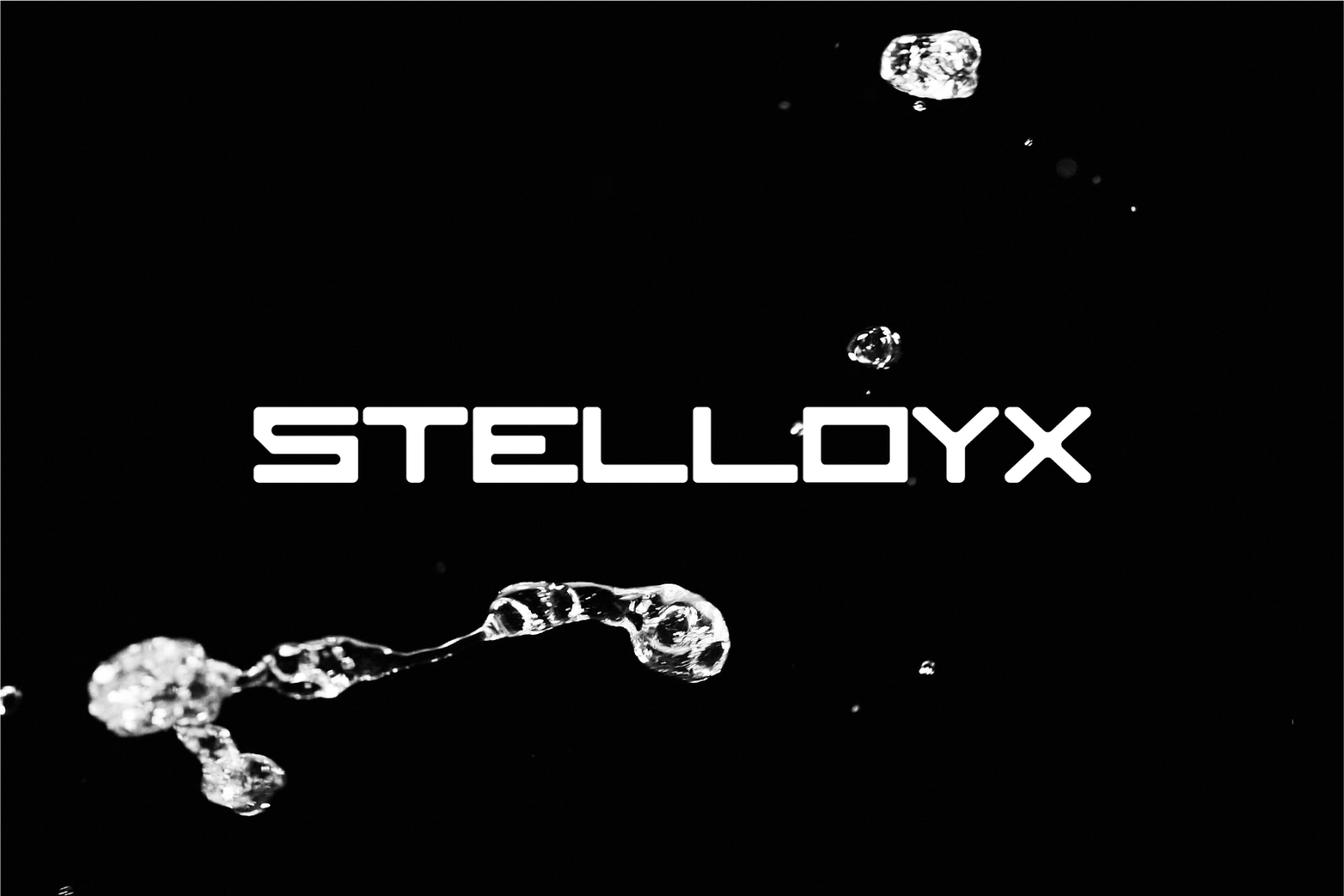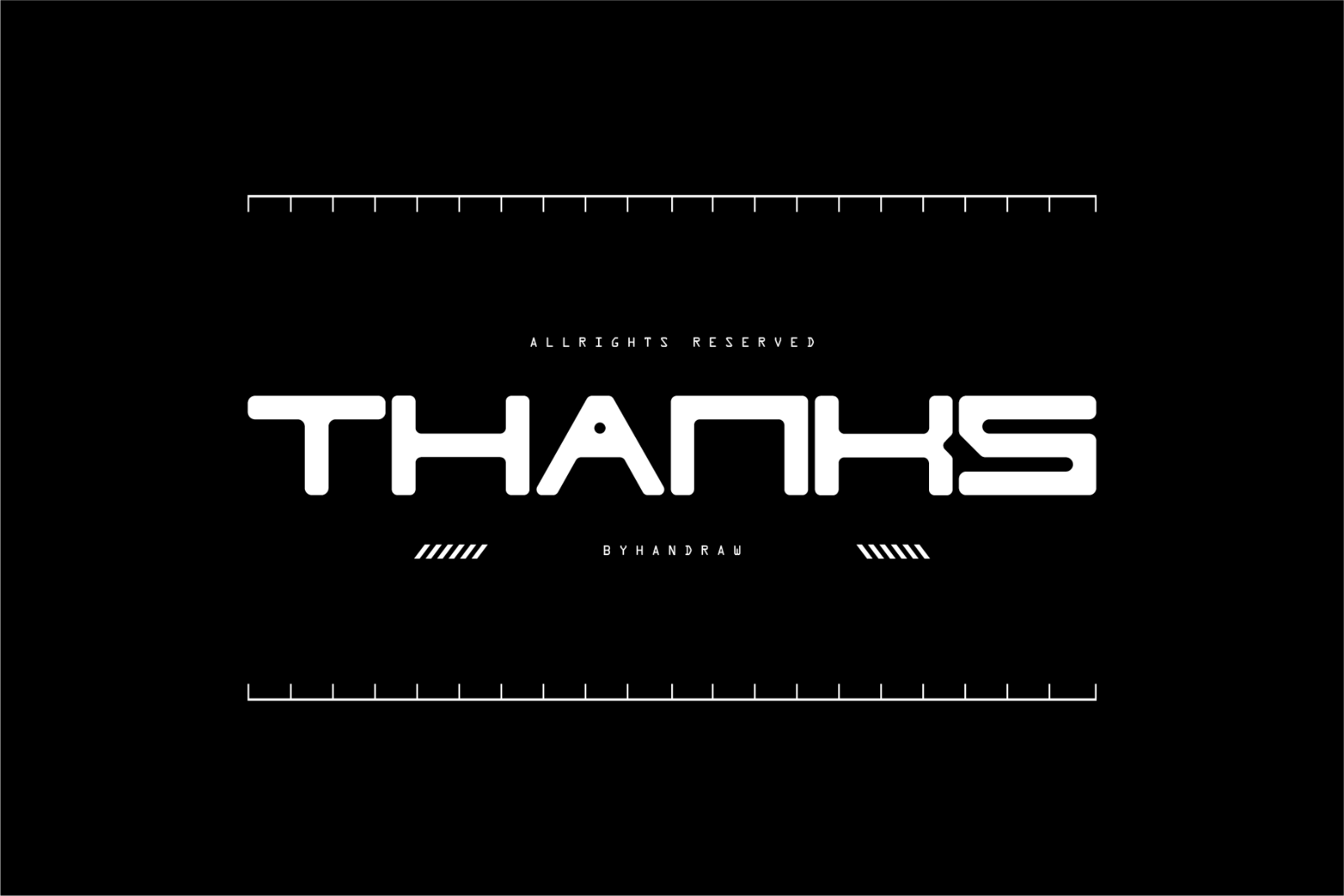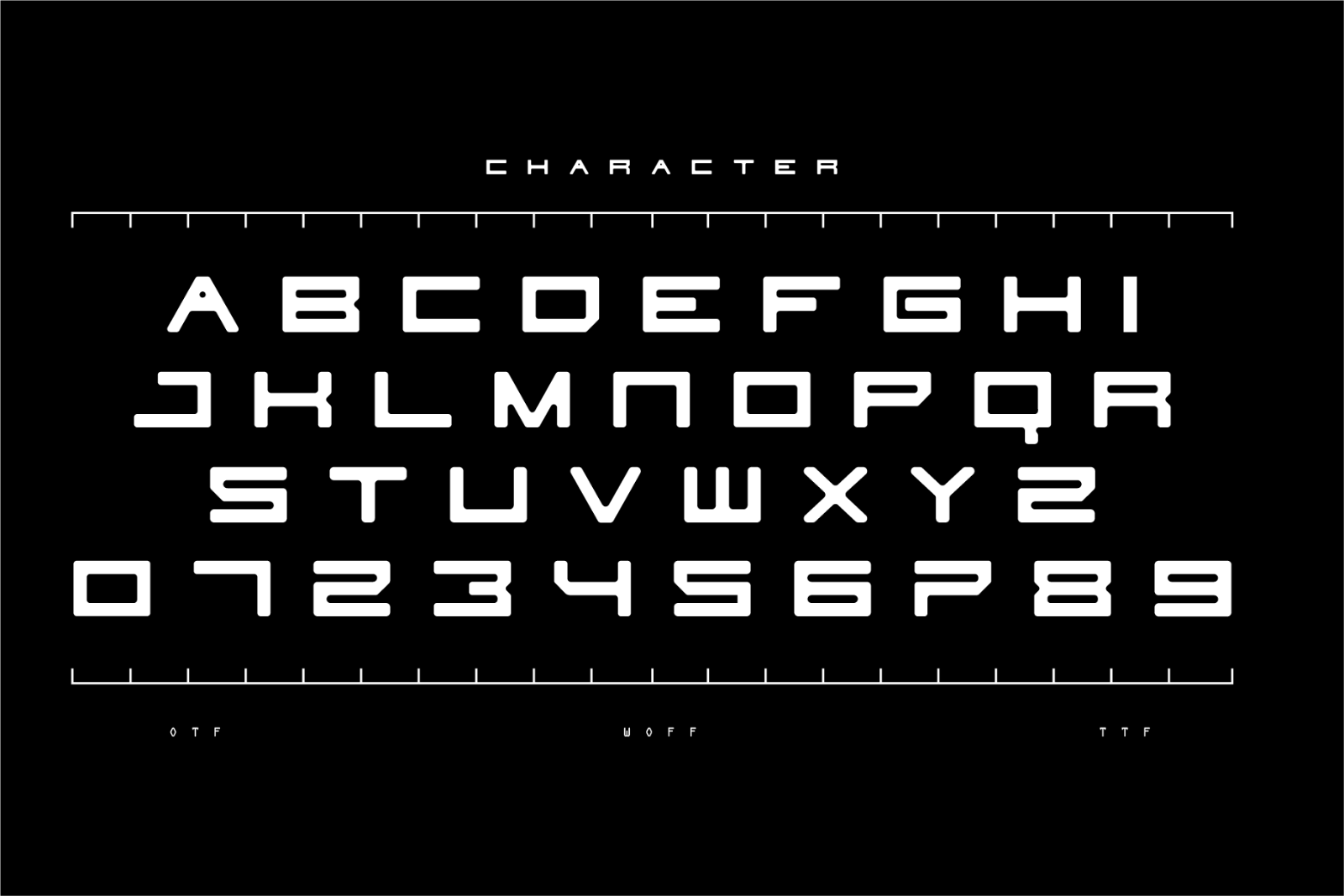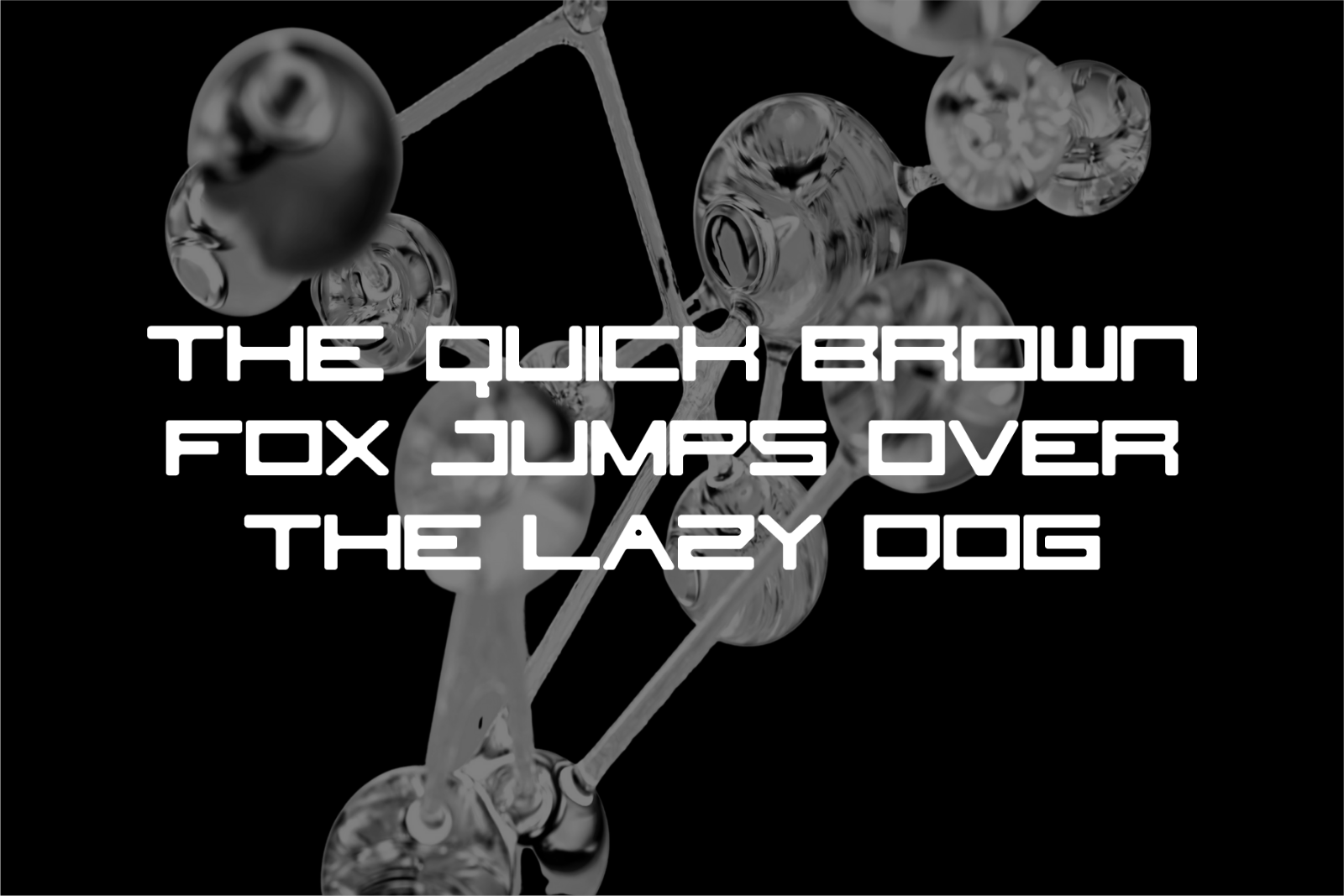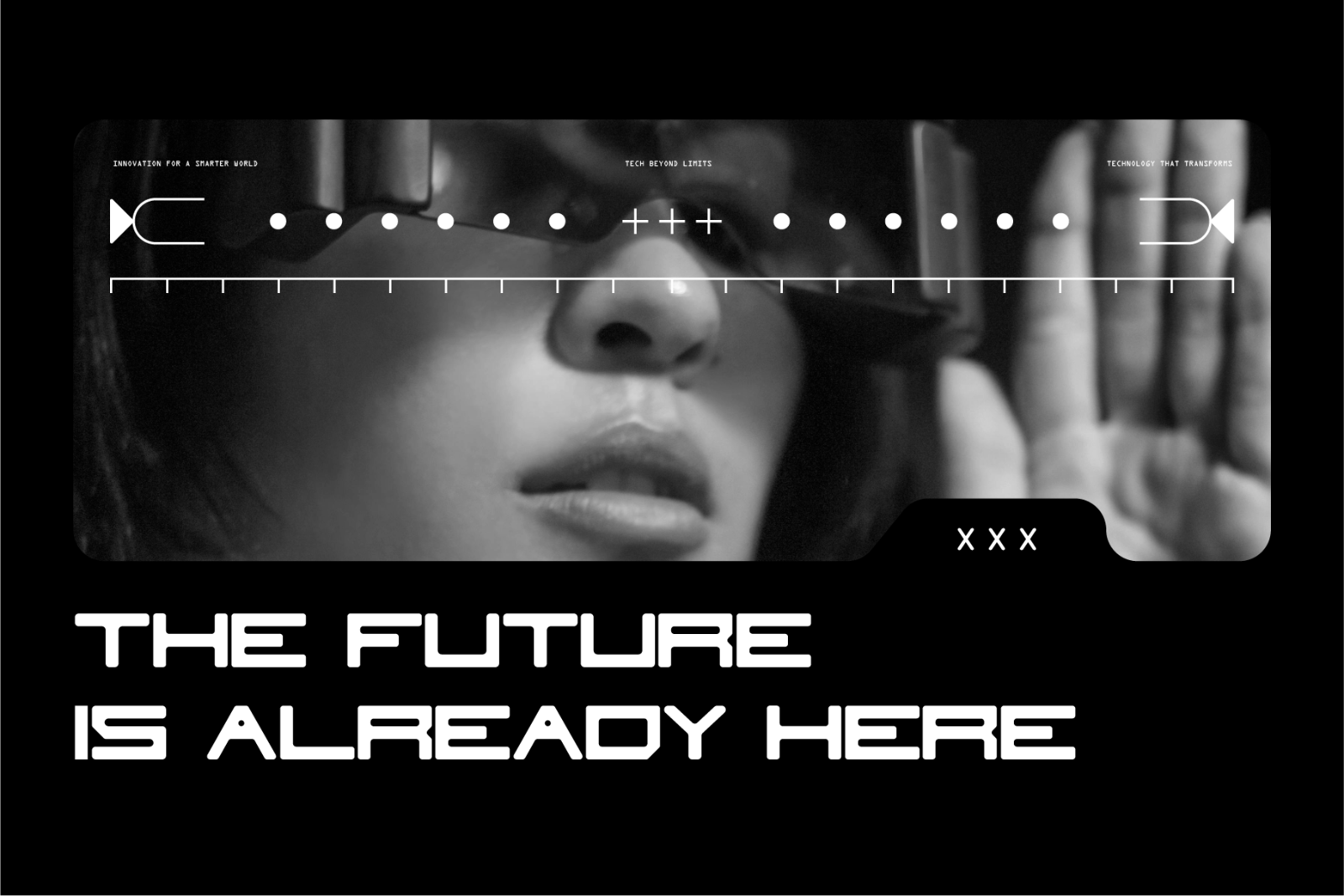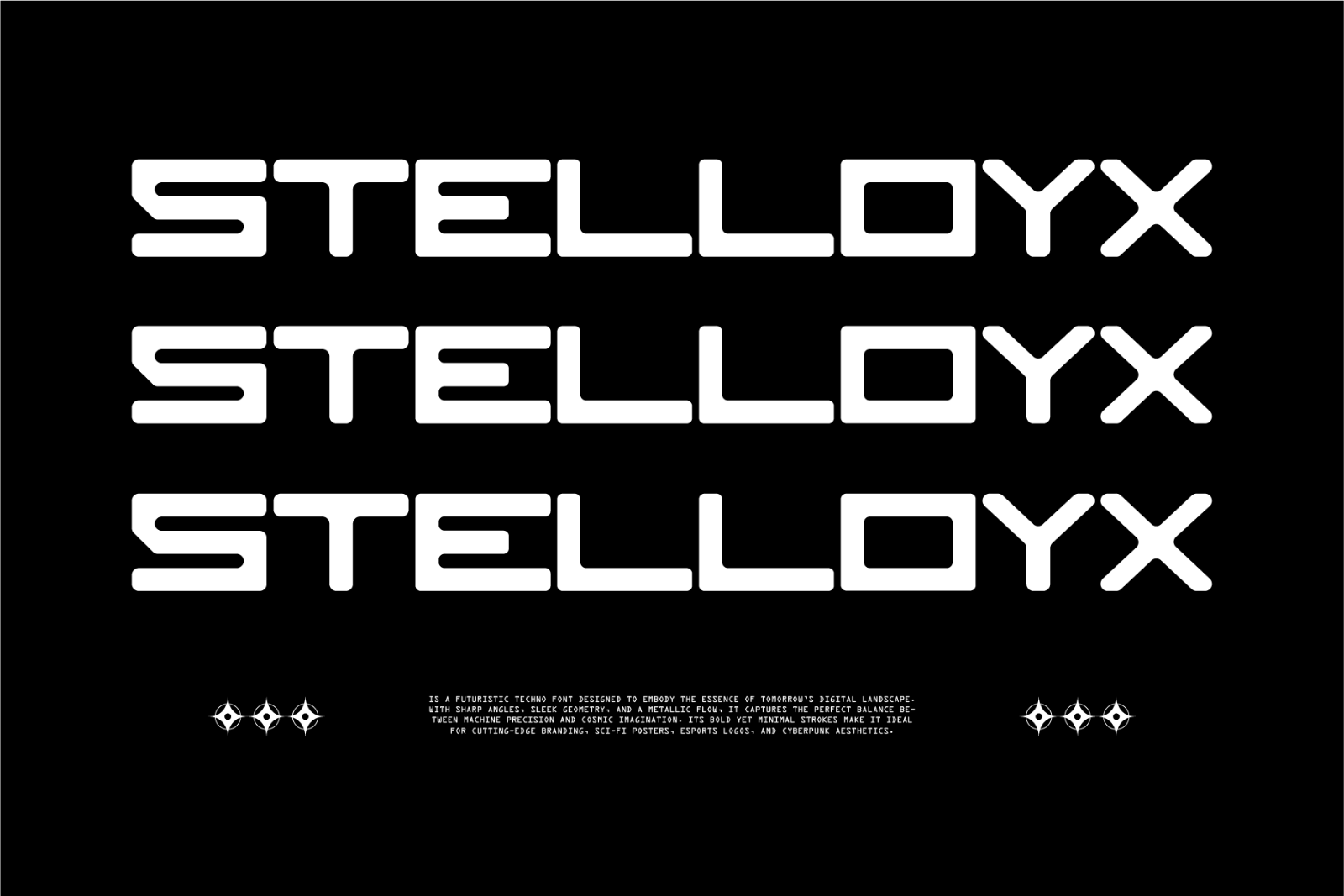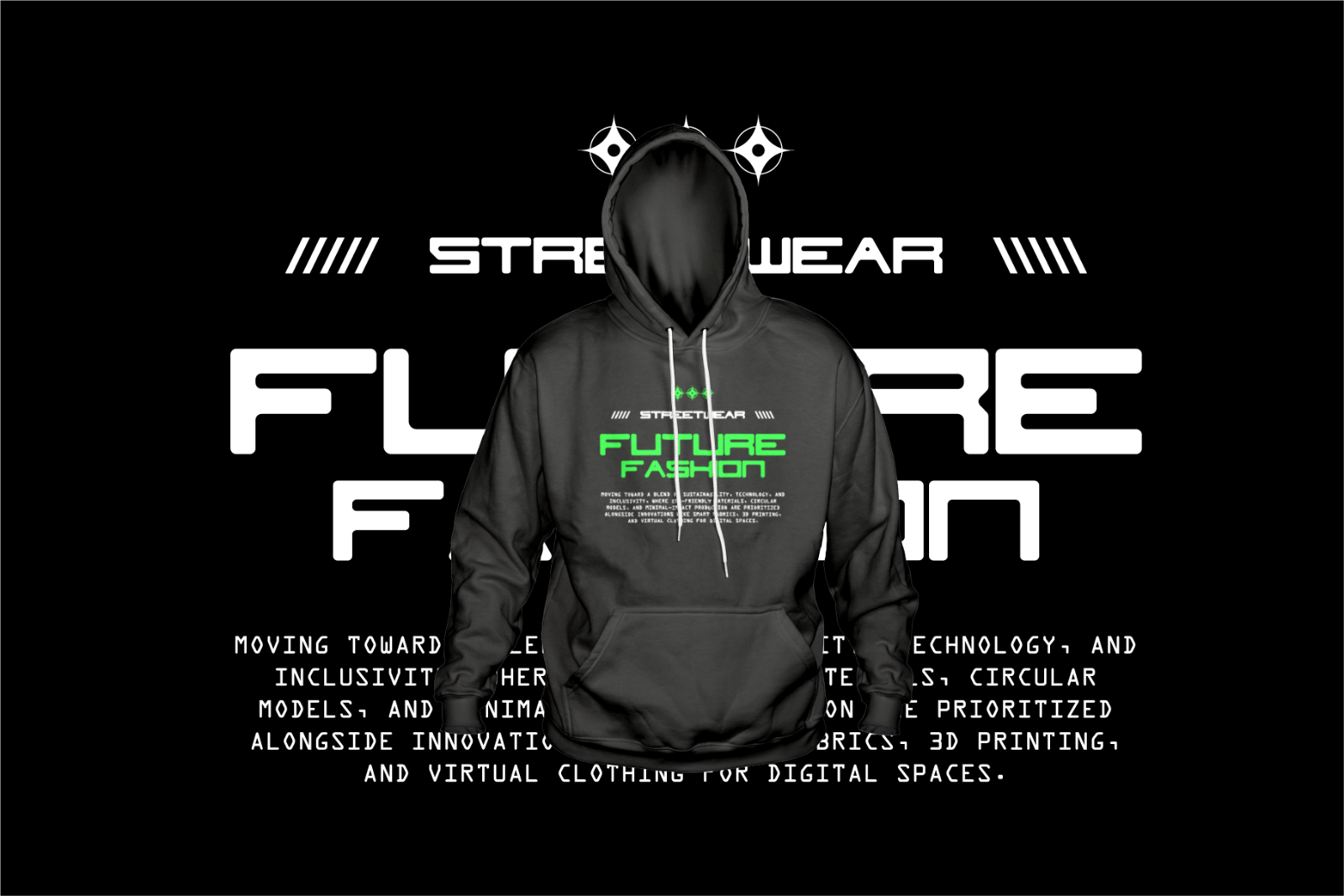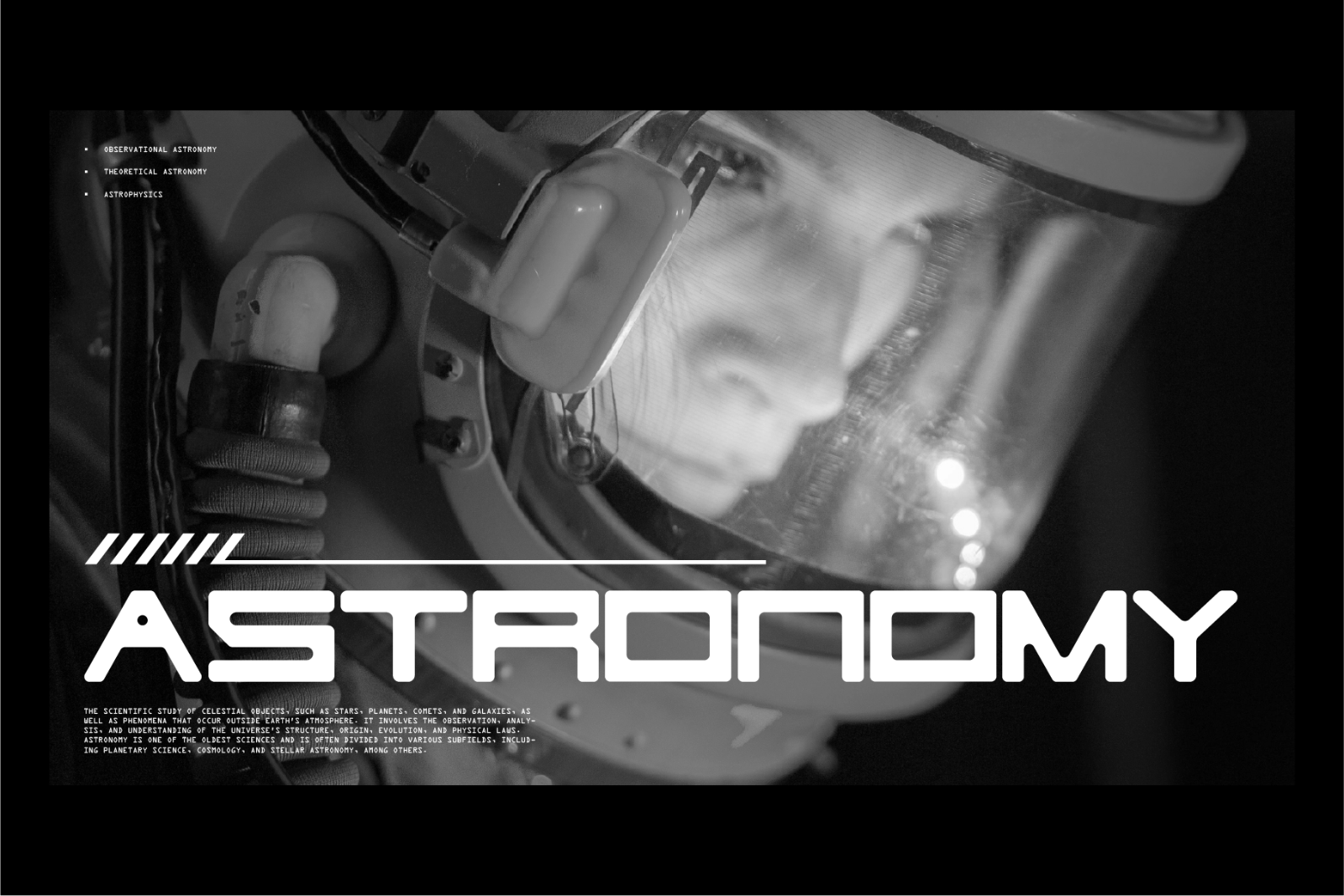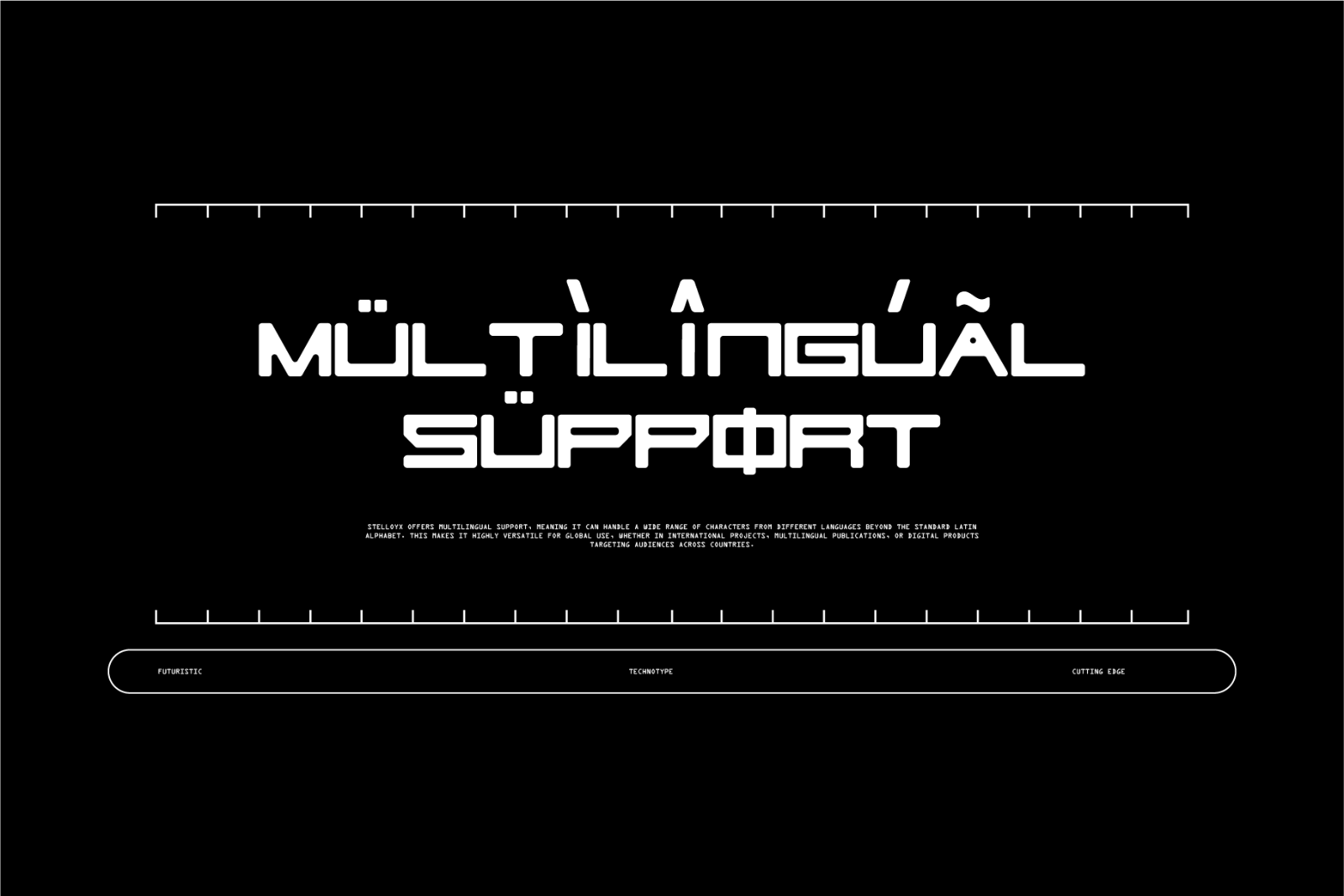
Stelloyx is a futuristic techno font designed to embody the essence of tomorrow’s digital landscape. With sharp angles, sleek geometry, and a metallic flow, it captures the perfect balance between machine precision and cosmic imagination. Its bold yet minimal strokes make it ideal for cutting-edge branding, sci-fi posters, esports logos, and cyberpunk aesthetics.